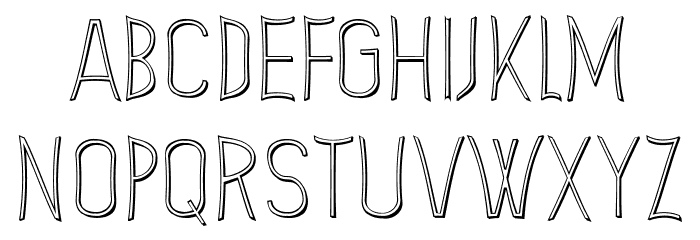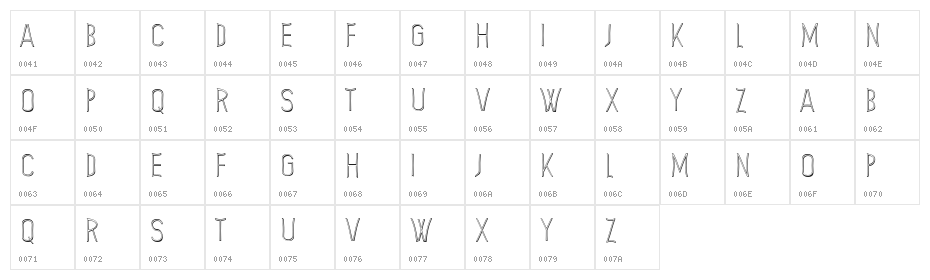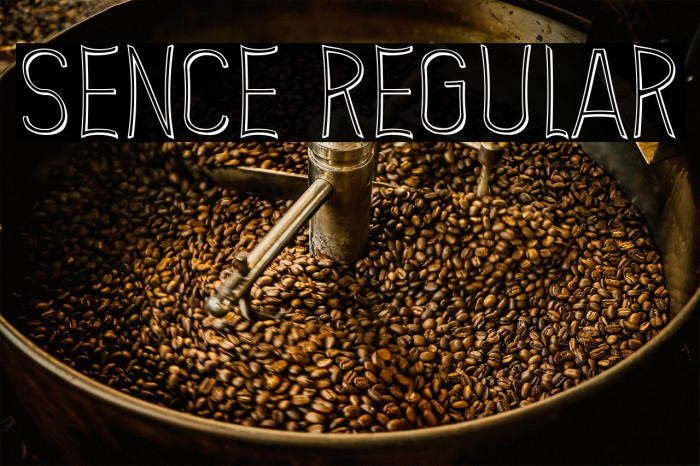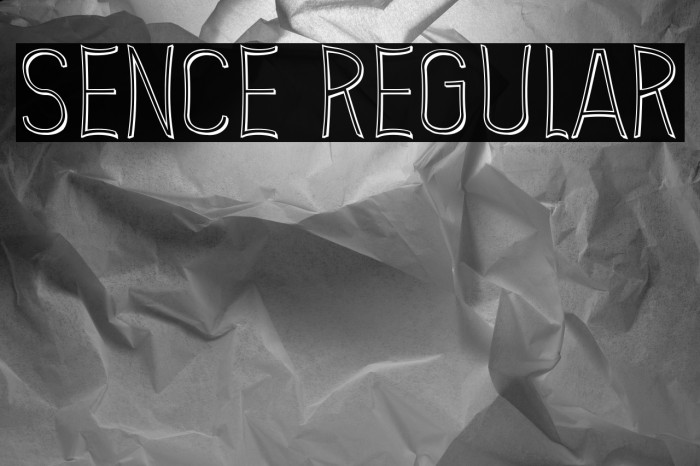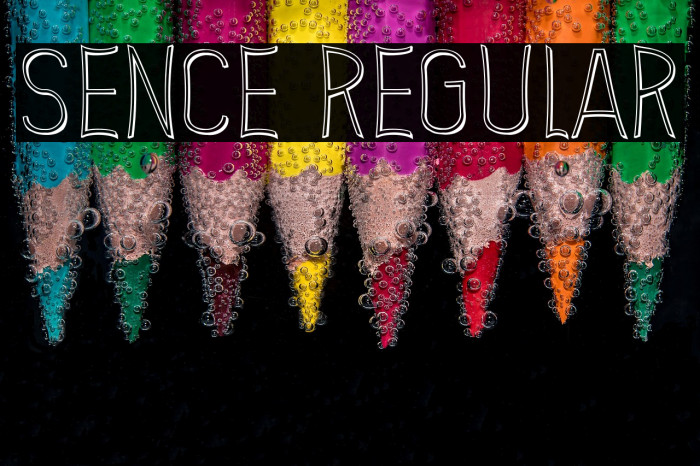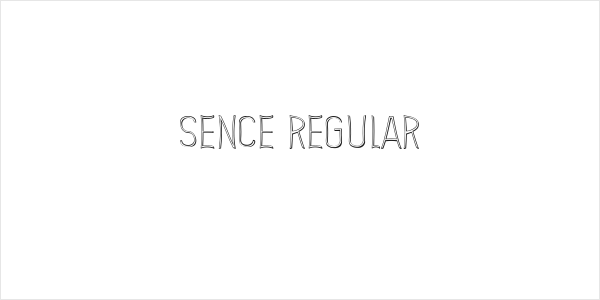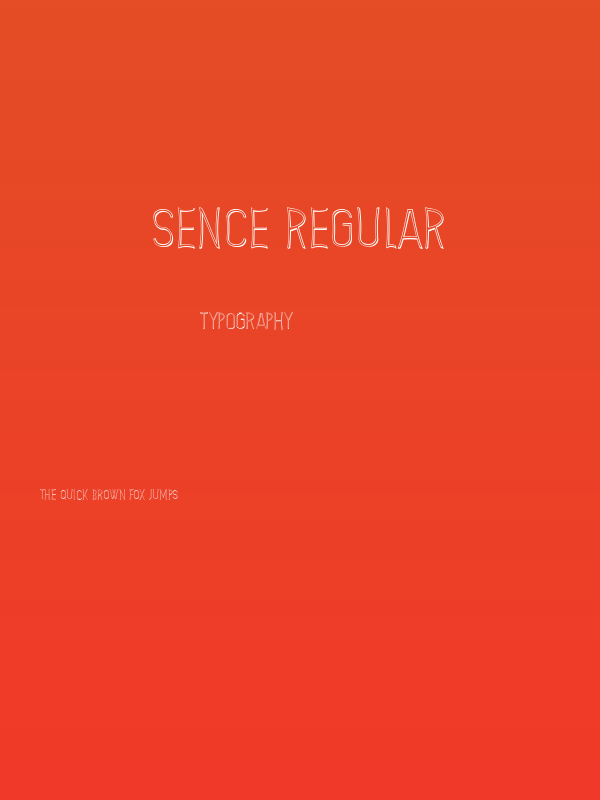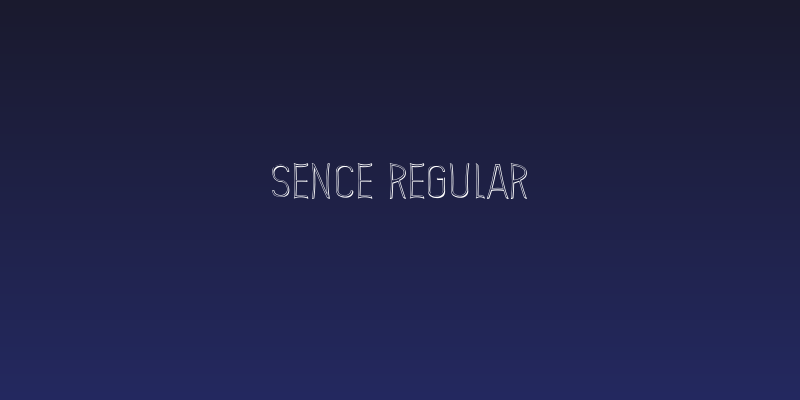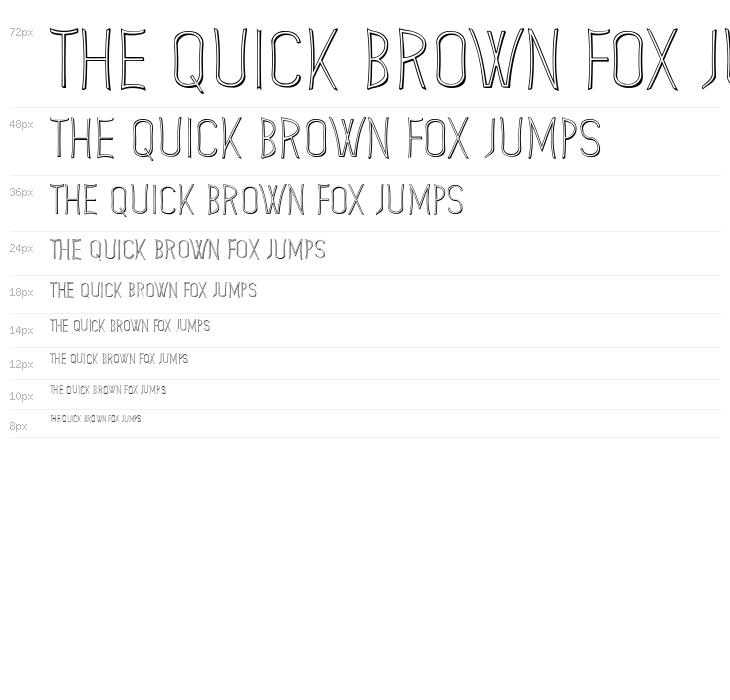
Sence Regular Font
Sence Regular Description
This font features a unique, hand-drawn style with a playful and artistic flair. The characters are outlined, giving them a hollow appearance that adds depth and dimension. Each letter has a slightly irregular shape, contributing to a whimsical and informal aesthetic. The strokes are consistent in width, with a medium contrast that enhances readability while maintaining a casual look. This font is ideal for creative projects where a touch of personality and individuality is desired.
| Overall Style | Whimsical, Artistic |
| Use Case | Headlines, Creative projects, Informal designs |
| Proposed Projects | Great for posters, greeting cards, children's books, and creative branding projects. |